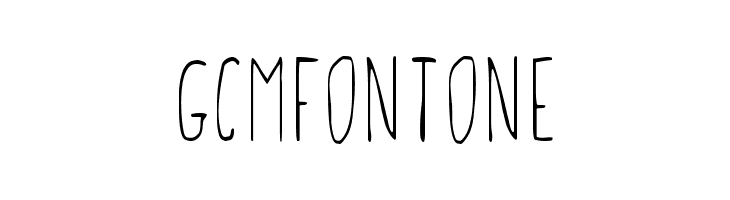
A digital-style font with geometric, LED-inspired characters.
A bold, distressed font with a rugged, vintage appearance.
A bold, distressed font with a grunge, vintage style.
( Fonts by Typograddict )
A sleek, modern font with clean lines and slightly condensed letterforms.
( Fonts by Guillem Castro )
A playful, handwritten font with tall, narrow letters and a casual style.
( Fonts by Runes & Fonts )
A playful, handwritten font with fluid strokes and a casual style.